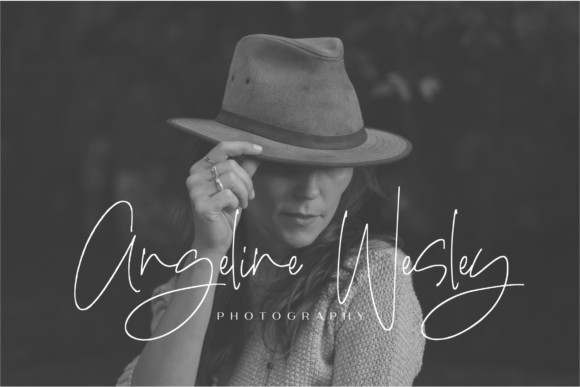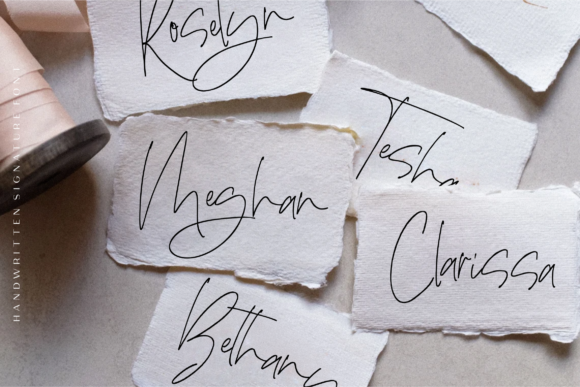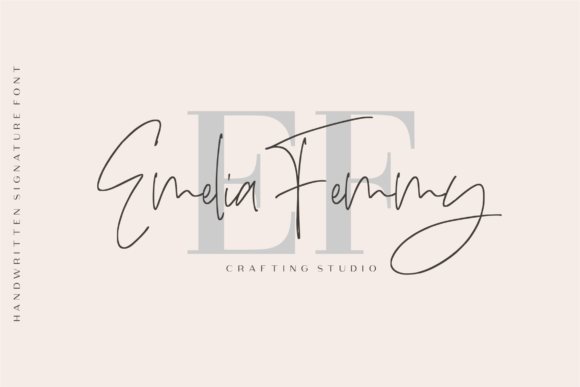
Introduction to Shelbymalkan Font
Shelbymalkan is a slim and subtle handwritten font that is crafted with great care for maximum results.
It will add elegance and class to any of your design projects .